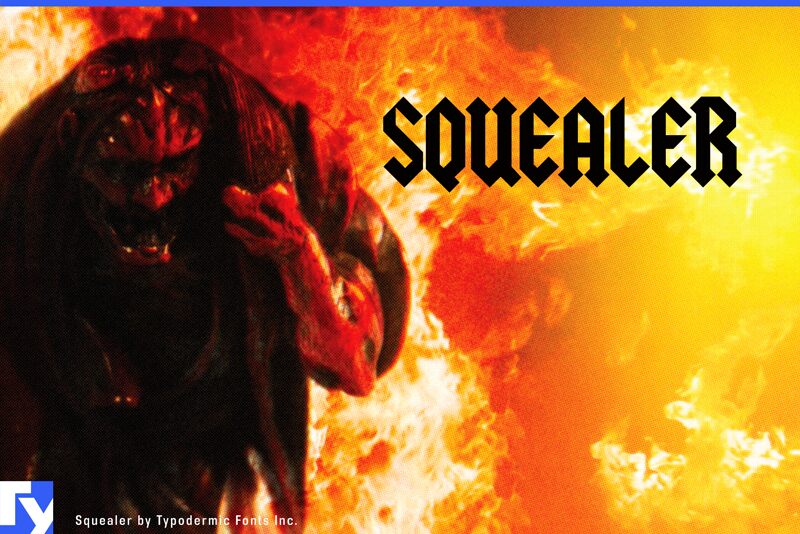
Squealer Embossed by Ray Larabie of Typodermic Fonts Inc. is a free embossed blackletter font with sharply cut, three-dimensional forms and deep internal facets. Its angular strokes resemble folded metal and engraved sign lettering.
As a theatrical title, it can turn horror posters and heavy metal merchandise into part of the spectacle, with the letters acting as a jagged emblem rather than neutral text. The carved depth also suits fantasy game branding and event graphics built around medieval weapons, armor, or stonework.
Squealer Embossed